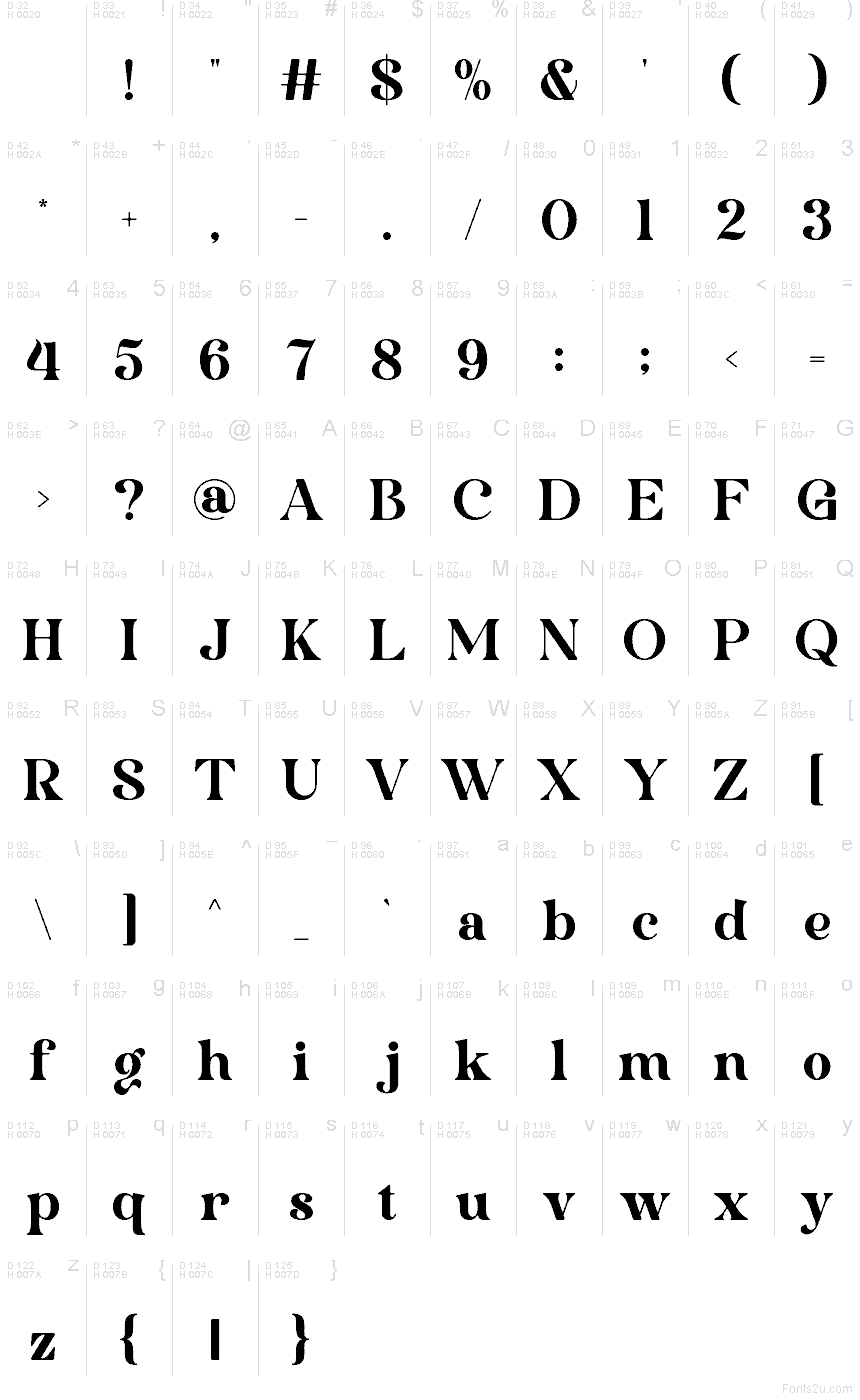
Saglary Regular
Saglary font by ErmediaStudio is a free decorative serif typeface with a lush, inky presence and delightful quirks. The letters feel wide and generous, with soft curves that suddenly flip into sharp notches, giving each word a dramatic, almost theatrical weight. That looping, sculpted rhythm makes Saglary look both luxurious and a little mischievous, like vintage signage redrawn with a bold modern brush.
Using Saglary, headlines feel rich and memorable, whether on boutique branding, beauty packaging, posters, magazine covers, invitations, or social media graphics. This free font shines when you set it large and give it room to breathe, then pair it with a clean geometric sans serif for body text to keep layouts balanced.